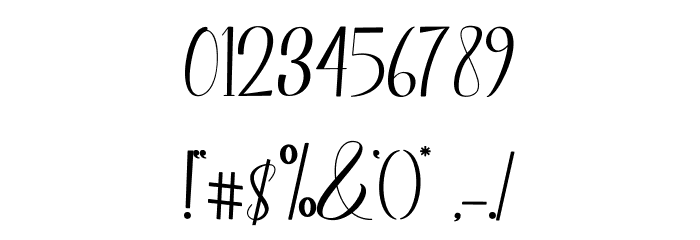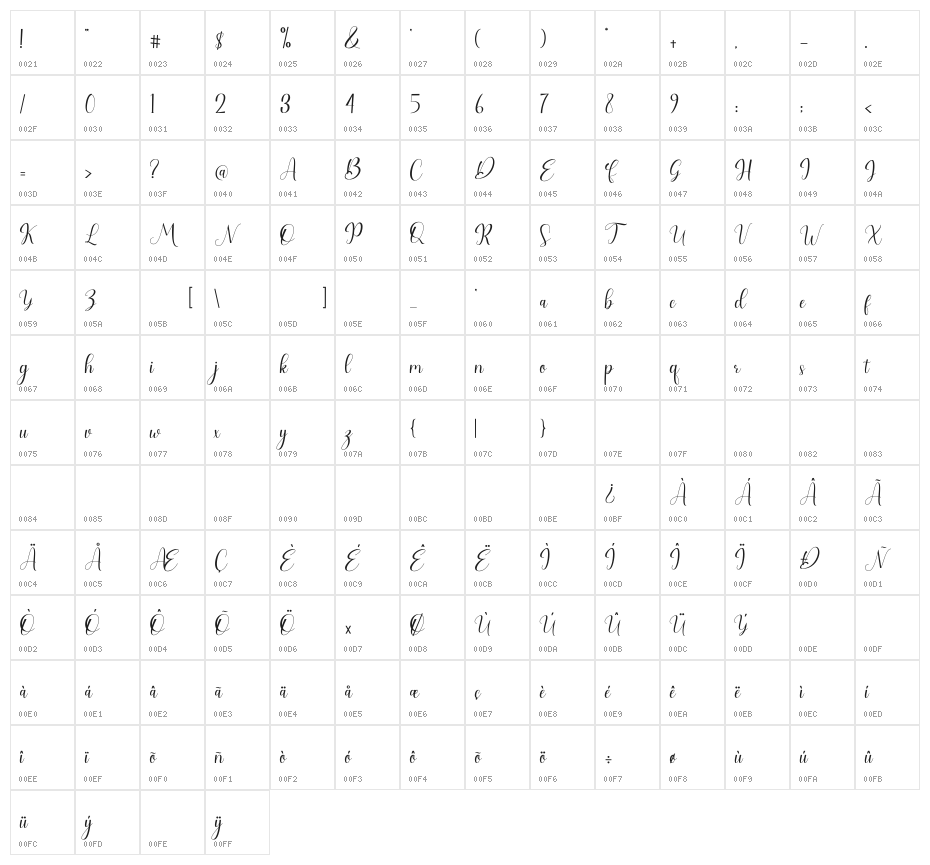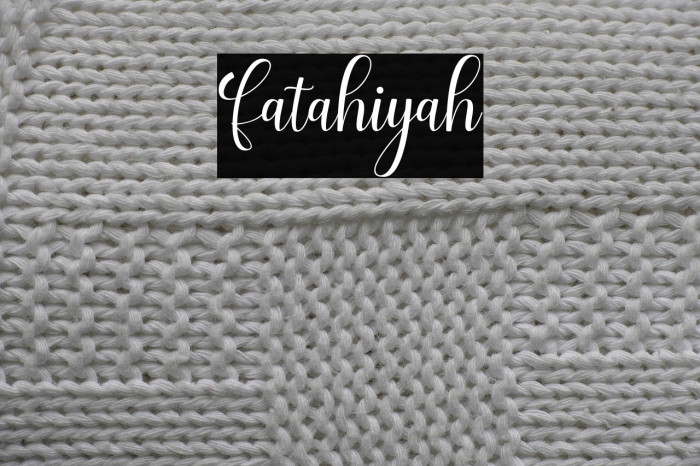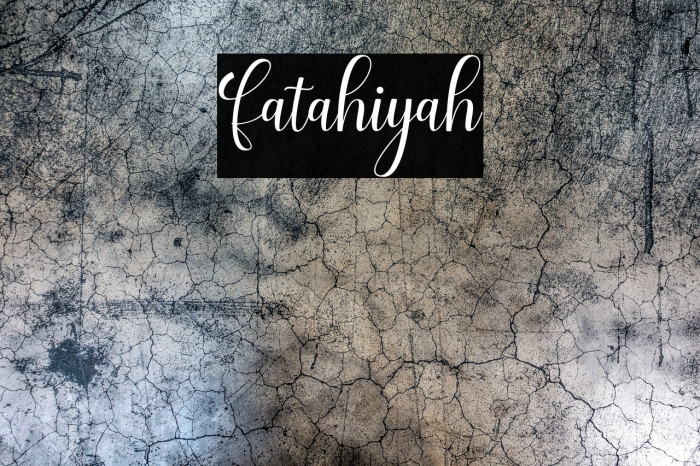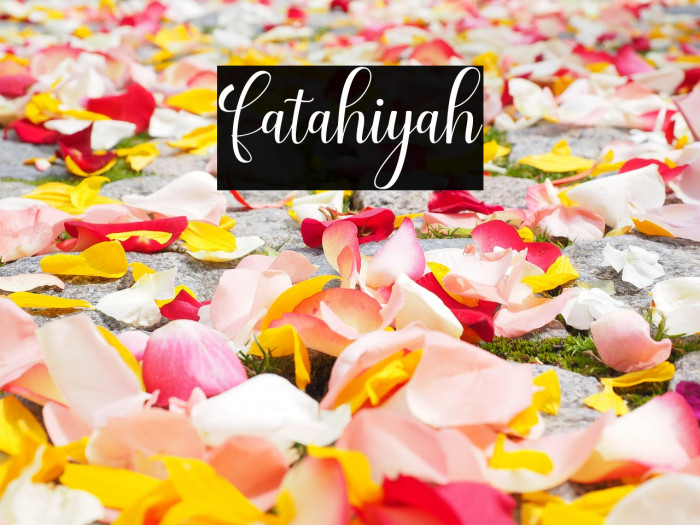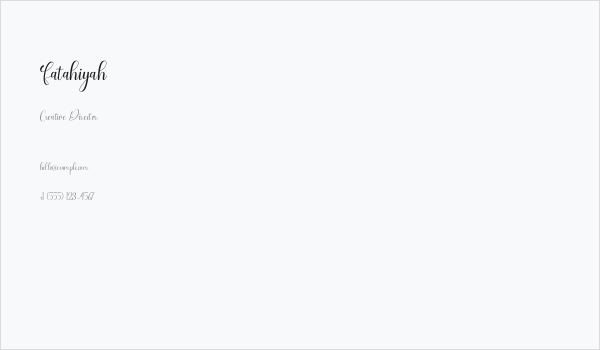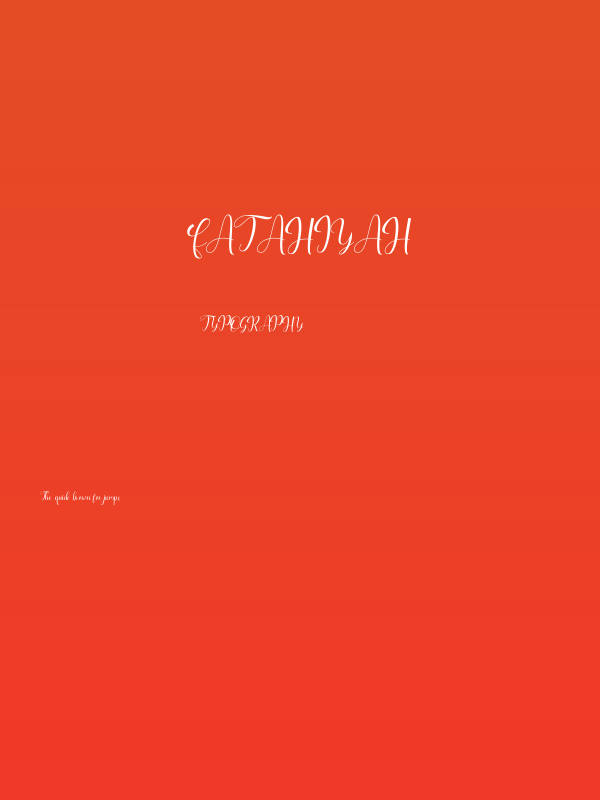
Fatahiyah Font
Fatahiyah Description
This font features an elegant and flowing script style, characterized by its graceful curves and sophisticated appearance. The uppercase letters are particularly ornate, with sweeping lines and flourishes that give a sense of movement and fluidity. The lowercase letters maintain a consistent style, offering a harmonious blend of readability and decorative flair. Numbers and special characters are designed to complement the overall aesthetic, ensuring a cohesive look across all text elements. This font is ideal for projects that require a touch of elegance and sophistication, such as invitations, branding, and editorial design.
| Overall Style | Elegant, Sophisticated |
| Use Case | Headlines, Invitations, Branding |
| Proposed Projects | Ideal for wedding invitations, luxury branding, editorial design, and elegant stationery. |